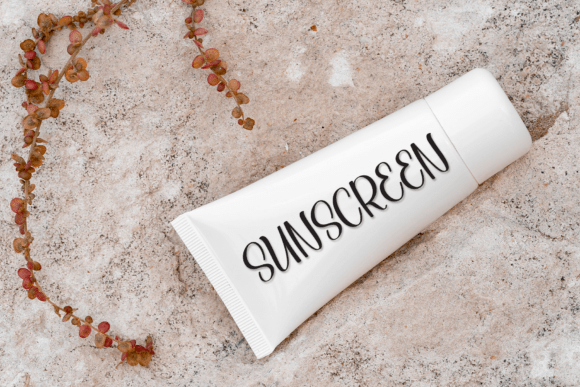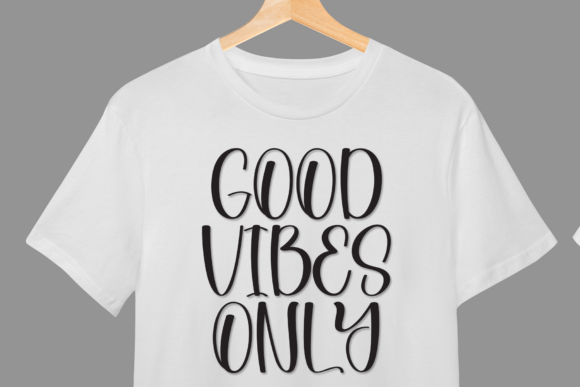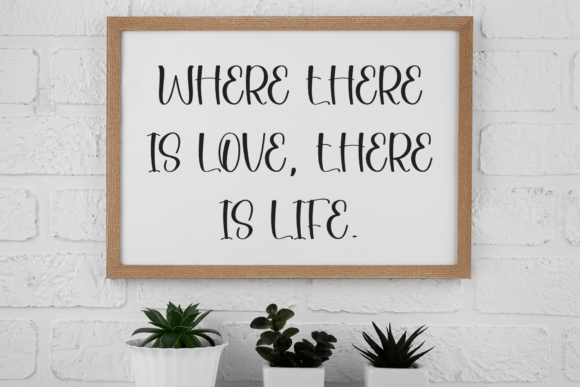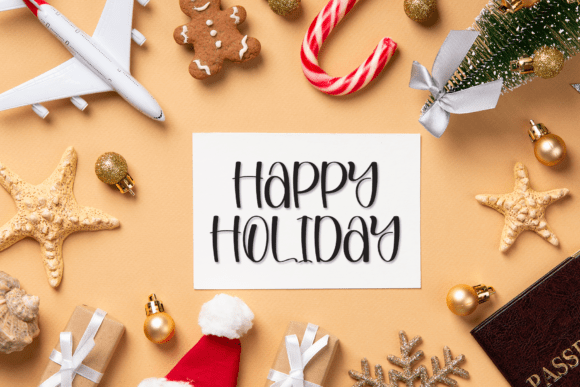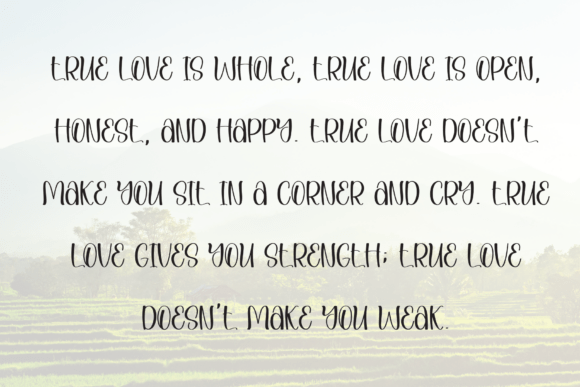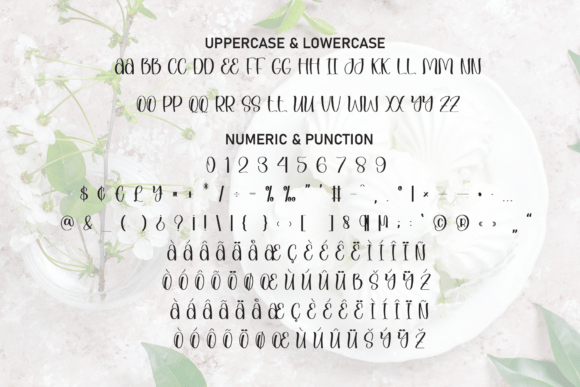
Introduction to Jasmine Sweety Font Font
Fonts play a crucial role in design, and the Jasmine Sweety Font font is a typeface that brings both character and versatility to any project. Whether you’re working on a branding project, a website, or a print design, the Jasmine Sweety Font font offers a unique style that can elevate your work.
Unleash the charm and playfulness with the enchantingly friendly βSweet Handwritten Display Font.
β With its delightful and engaging appeal, this unique font breathes life into any design Itβs perfect for adding a hint of joyful whimsy to wedding invitations, personal cards, or any design in need of a cheerful touch.
Key Features of Jasmine Sweety Font Font
Why Choose Jasmine Sweety Font Font?
The Jasmine Sweety Font font is more than just a typeface β it’s a design tool that helps you communicate your message with style and clarity. Its unique character set and versatile design make it suitable for a wide range of applications, from elegant invitations to bold headlines.
With its carefully crafted letterforms and balanced proportions, the Jasmine Sweety Font font ensures readability and visual appeal across all mediums.
What makes Jasmine Sweety Font font special?
The Jasmine Sweety Font font stands out with its unique design, exceptional readability, and versatility across various design applications.